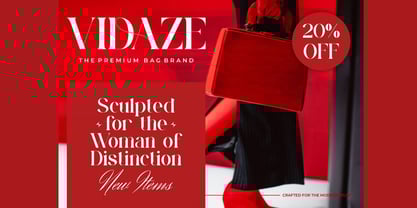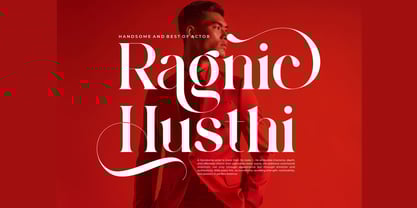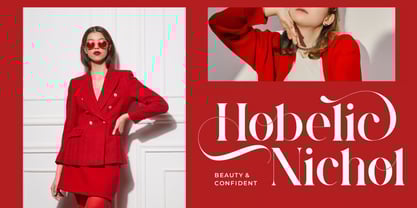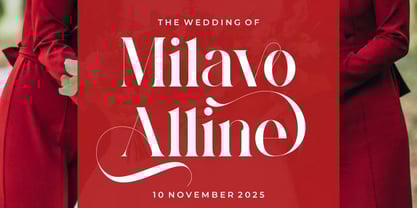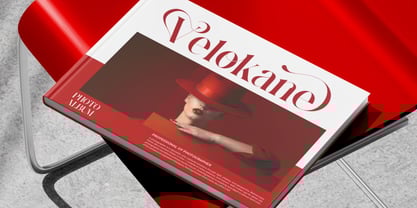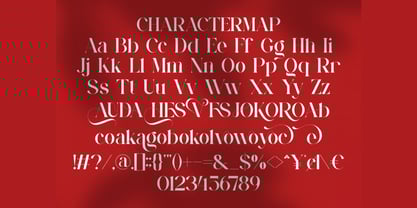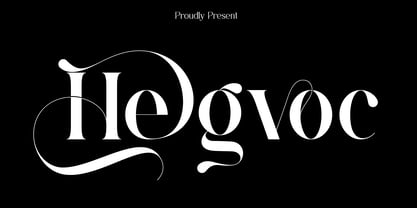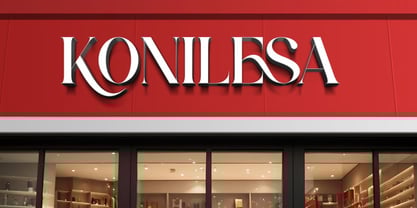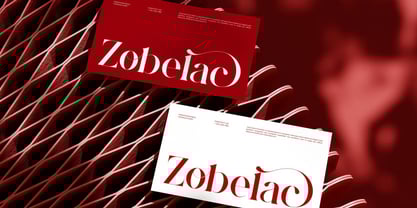
Hegvoc
The Hegvoc Font Family was designed by Hasnat Khan and published by Hasnat Studio. Hegvoc contains 1 styles. More about this family
Hegvoc is an elegant and classy serif font designed to elevate any branding or design project. With its smooth letterforms, stylish ligatures, and refined characters, Hegvoc seamlessly blends timeless sophistication with a modern aesthetic, making it ideal for creating designs that exude confidence and style. Whether you’re crafting logos, invitations, movie titles, book covers, or luxury branding, Hegvoc adds a sense of grace and charm to your work. Its balanced proportions and clean curves ensure versatility for both display and editorial use, offering endless creative possibilities. ✦ Features: Uppercase & Lowercase Letters, Numbers & Punctuation, Stylish Ligatures, Multilingual Support, Works on PC & Mac, Simple Installation. ✦ Perfect For: Elegant Branding, Luxury Logos, Invitation Cards, Editorial Titles, Business Cards, Fashion Magazines, Product Packaging. Bring timeless sophistication to your designs with Hegvoc — a refined serif typeface that enhances every project with a luxurious, elegant, and modern touch.